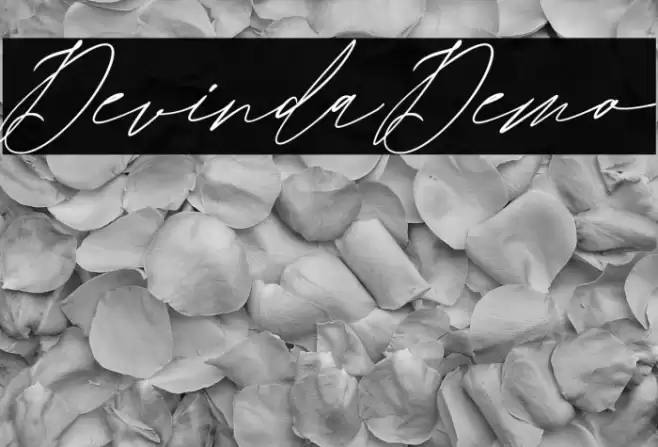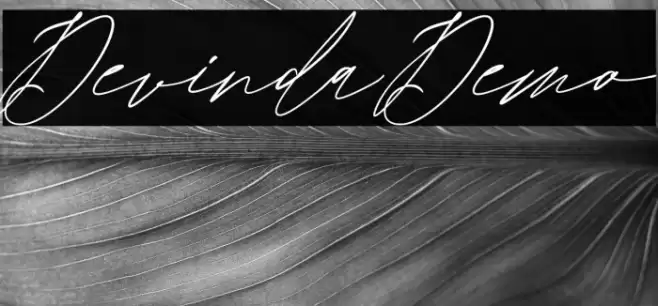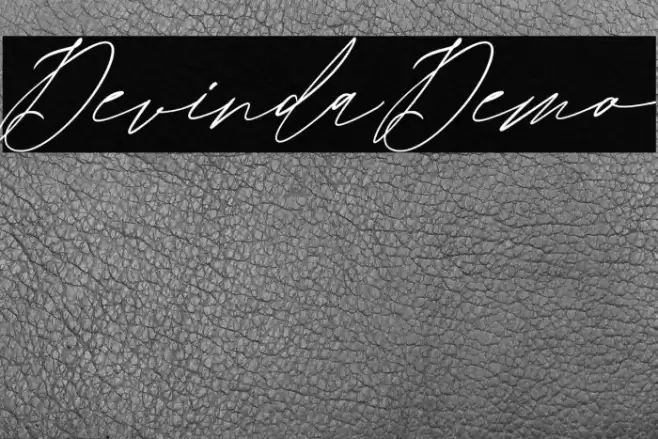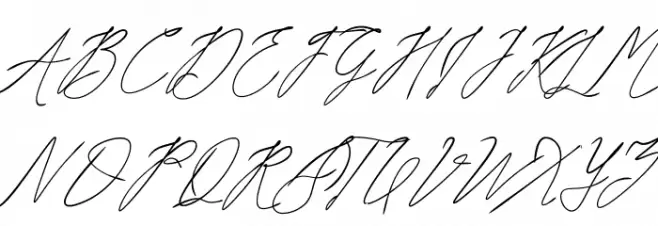
DevindaDemo Font
DevindaDemo Description
This elegant script font features a flowing, cursive style with a sophisticated and artistic flair. The letters are connected, creating a seamless and fluid appearance that mimics natural handwriting. The strokes are thin and delicate, with a consistent slant that adds to its graceful look. The uppercase letters are slightly larger and more ornate, while the lowercase letters maintain a smooth and continuous flow. This font is ideal for projects that require a personal touch or a sense of elegance and refinement. Its intricate design makes it suitable for invitations, greeting cards, and branding materials where a touch of class is desired.
A flowing, cursive script font with an elegant and artistic style from Regular fonts.
- Proposed Projects: Ideal for wedding invitations, greeting cards, personal branding, and elegant stationery.
- Character Spacing: Tight
- Overall Style: Elegant
- Use Case: Logos, Invitations, Personal Branding